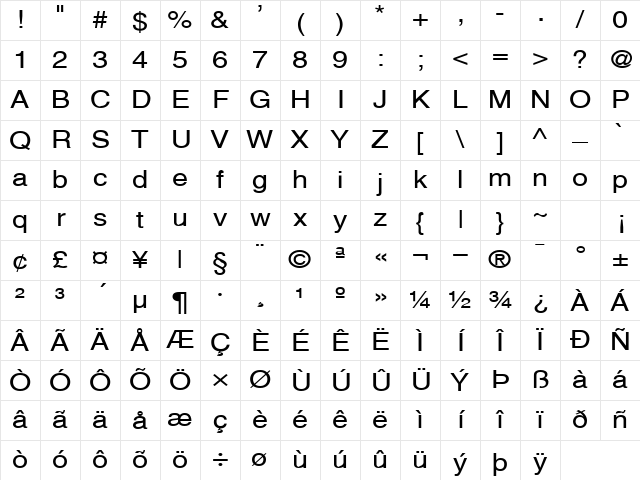
Alps Wide Normal Free Font
Alps Wide Normal
Alps Wide Family
Design Context for Alps Wide
Alps Wide is a composed and adaptable typeface that performs quietly and consistently across a wide range of design contexts.